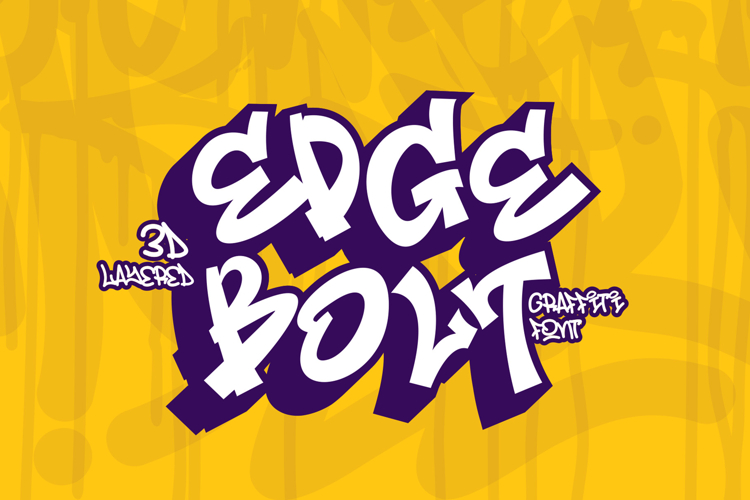
Edge Bolt - A Thin 3D Layered Graffiti Font
Edge Bolt is a striking 3D layered graffiti font that electrifies any design with its bold attitude and urban energy. Inspired by the raw essence of street art, this font delivers powerful letterforms, enhanced by dynamic layers that create an eye-catching 3D effect.
⚡ High-Impact Design – Edge Bolt stands out with its bold strokes and dimensional depth, making it perfect for posters, album covers, branding, and more.
🎨 Layered Versatility – Play with multiple layers to achieve unique color combinations and depth, bringing a realistic street-style graffiti effect to your work.
🔥 Urban Vibes – With its rebellious energy and modern graffiti aesthetics, Edge Bolt gives your designs a fearless and edgy look.
Whether you're crafting a logo, headline, or merchandise design, Edge Bolt brings the electrifying power of graffiti into the digital world.